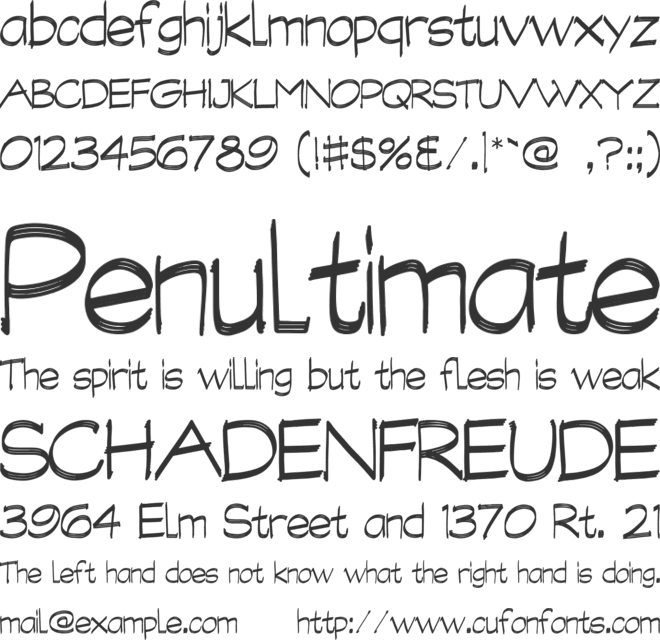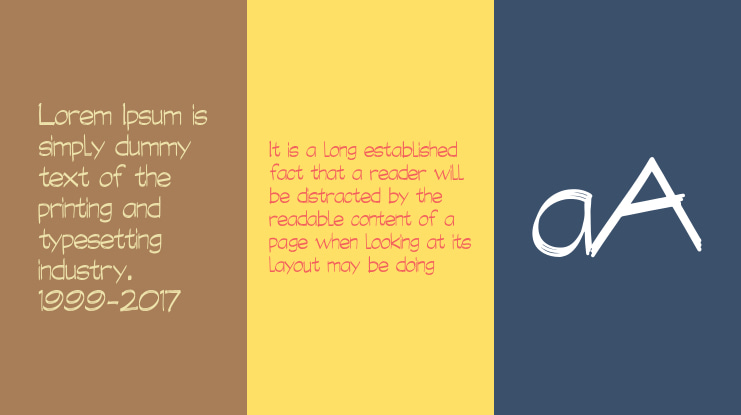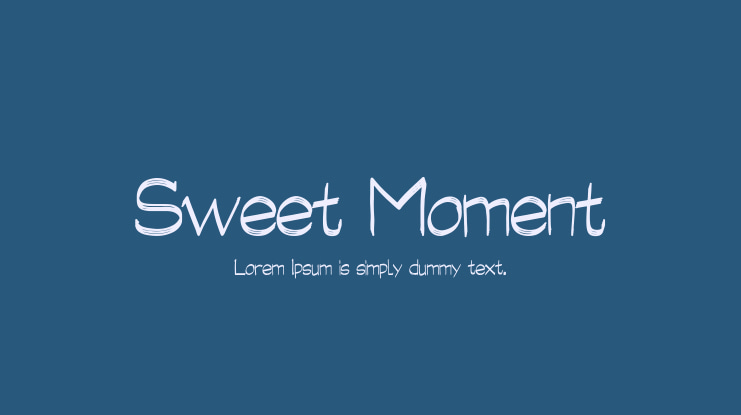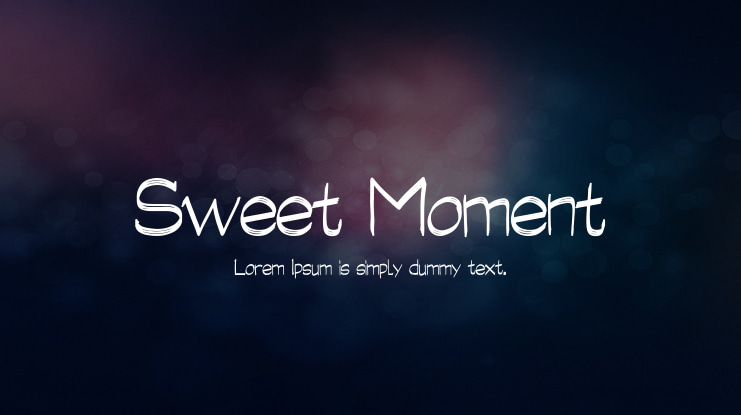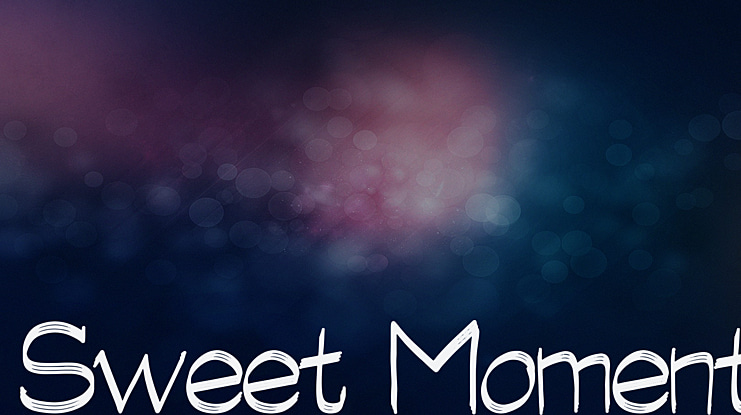
Sweet Moment Font
Sweet Moment is a simple and dainty handwritten font. Add this brushed font to each of your creative ideas, and notice how it makes them come alive.